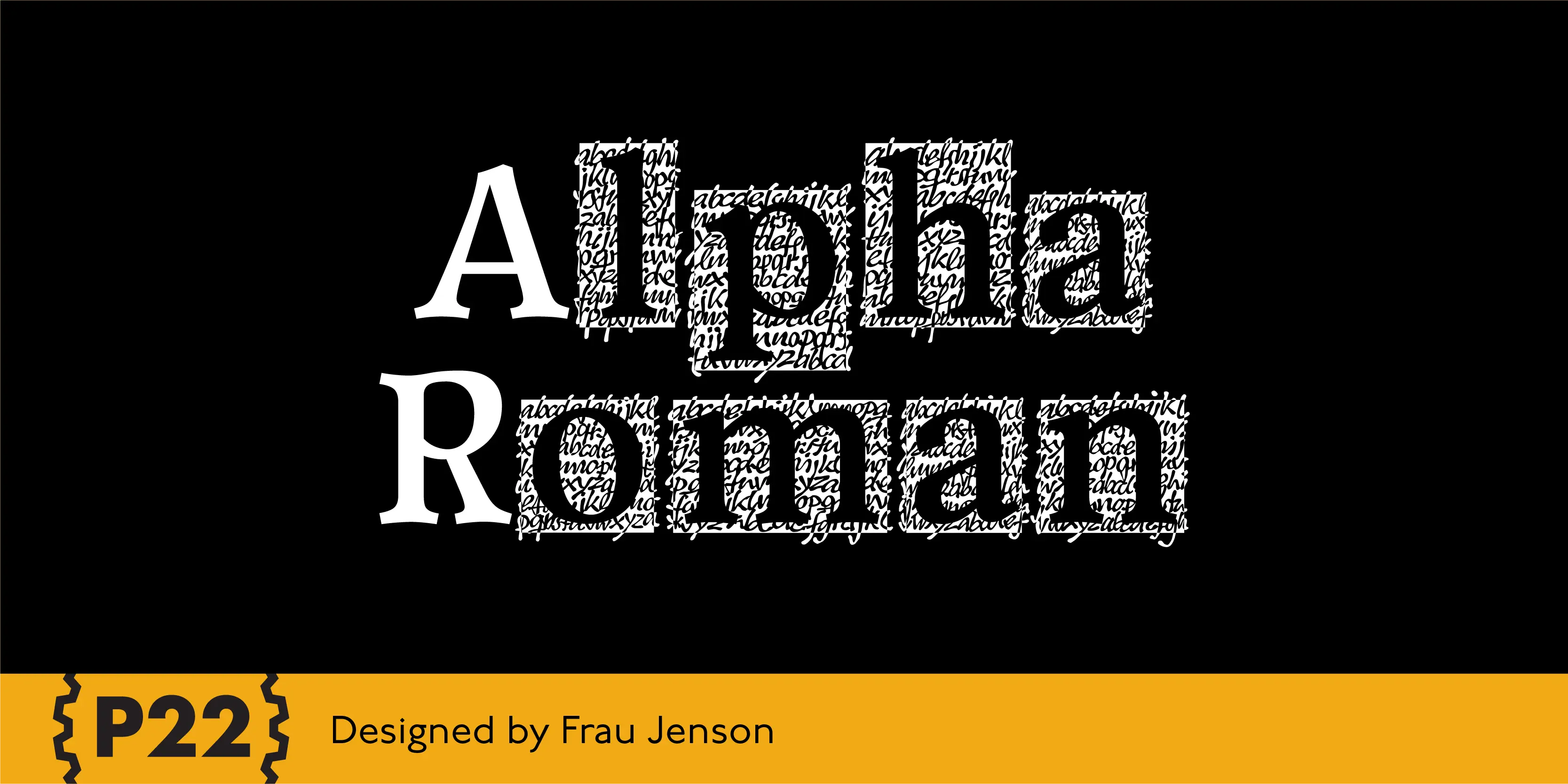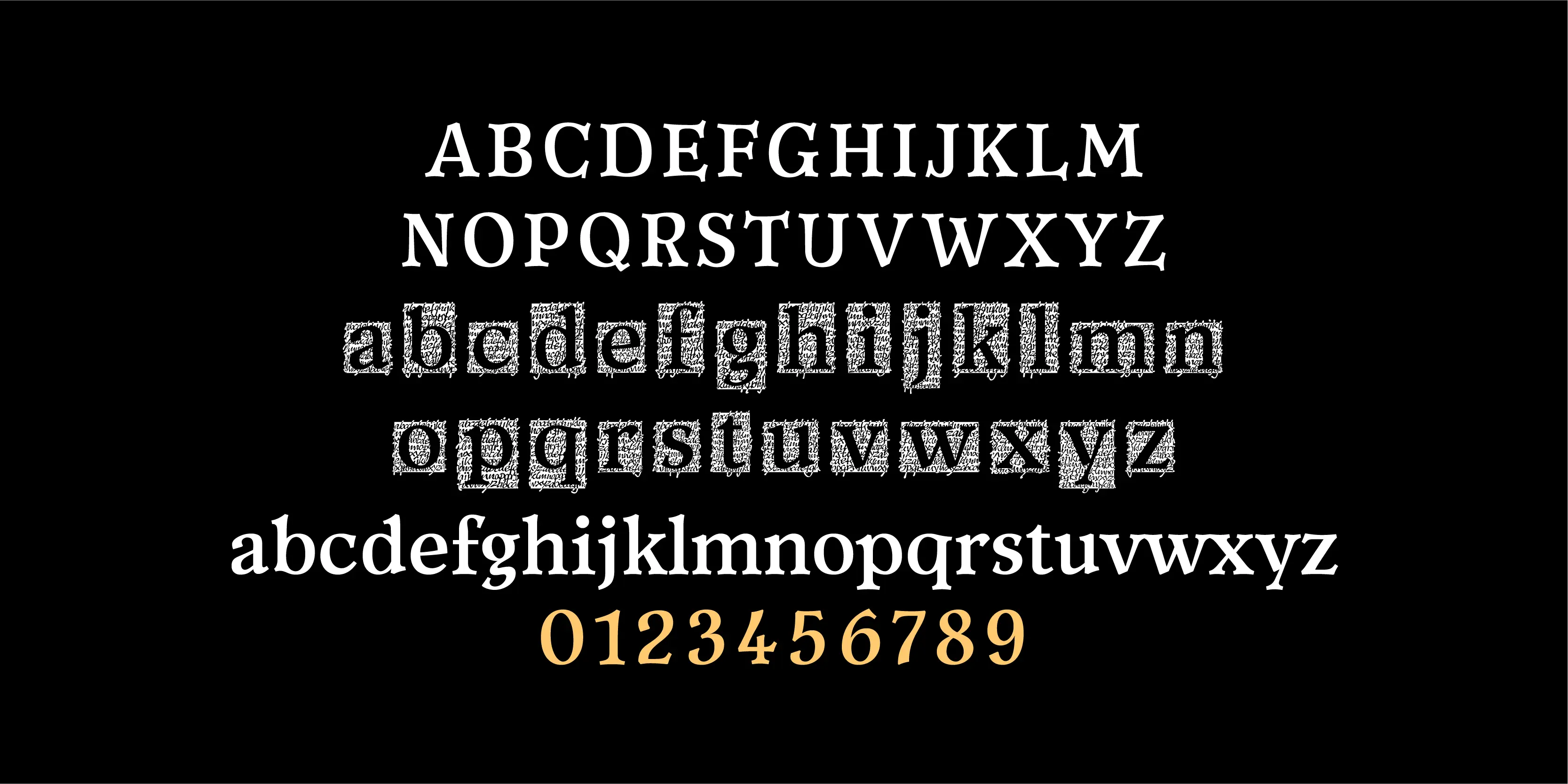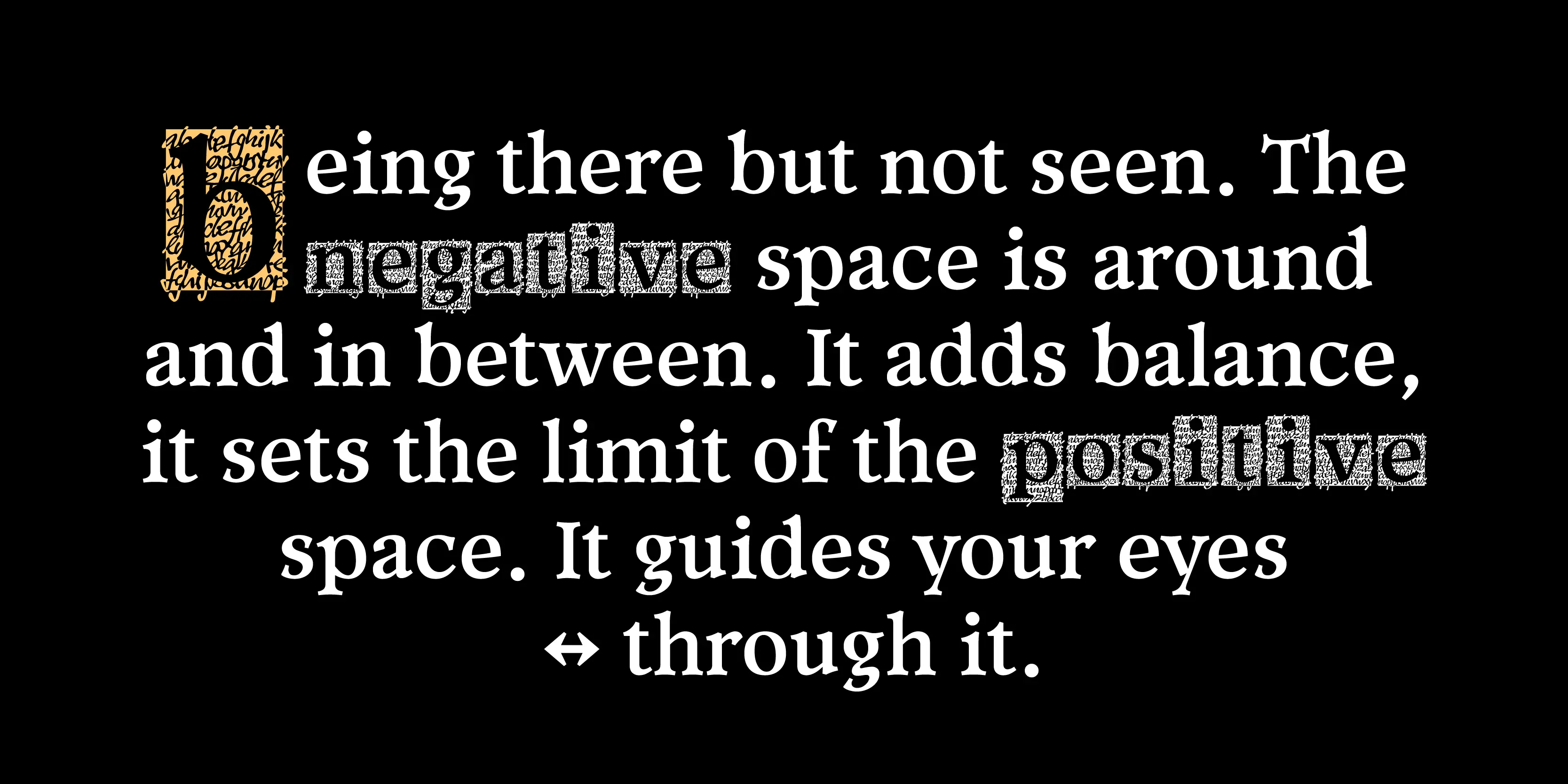
Alpha Roman Font Family
Alpha Roman
This font is a slightly calligraphic roman font with one major difference. In place of the upper case characters, there are decorative lower case “Drop Caps” accentuated by a decorative rendering of the alphabet in script form. As enlarged decorative caps — great for beginning paragraphs set in any number of fonts including the lower case included in the font itself.
• Fractions
• Old Style Numerals
• Ornaments
• Proportional Numerals
• Subscript
• Superscript
• Tabular Numerals
• Titling Capitals